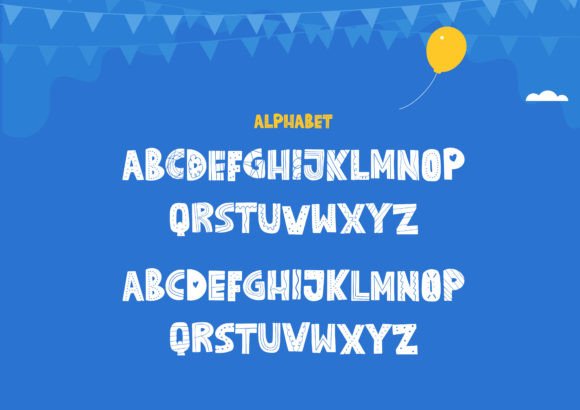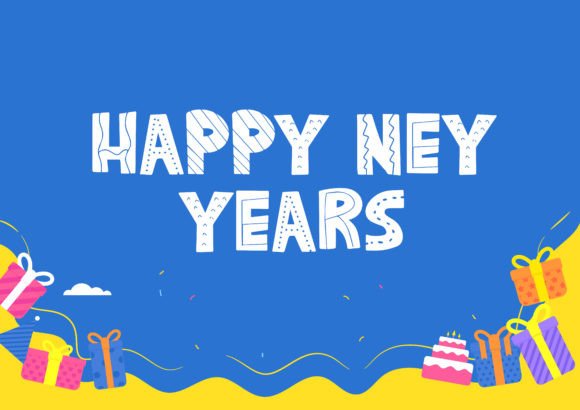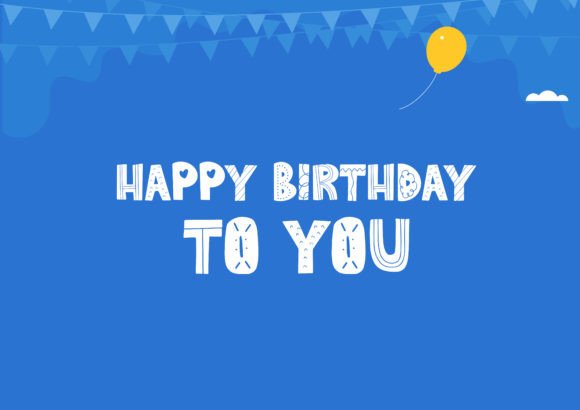
Introduction to Party Size Font
Party Size is a whimsical, hand-crafted display font.
It is perfect for children-related projects, cute posters, headlines, stickers, and so much more .
Key Features of Party Size Font
Why Choose Party Size Font?